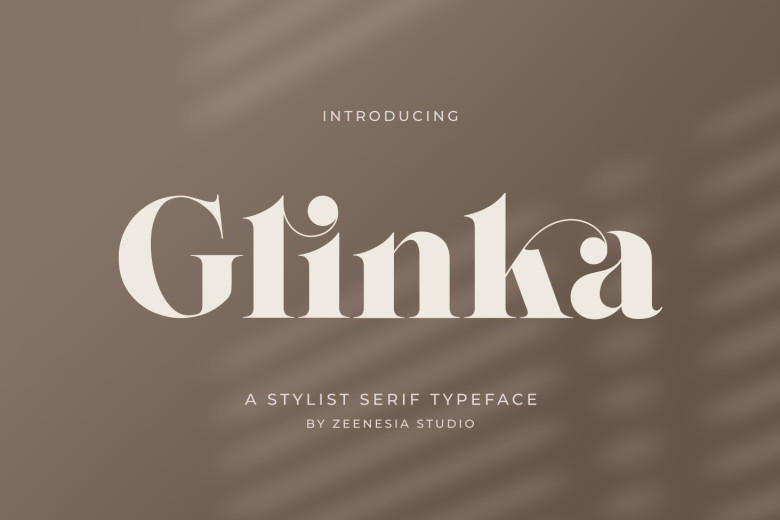
Glinka Font
Glinka is an elegant and beautiful serif typeface designed using modern open type features to suit a range of modern design needs, with numerous stylistic variations as well as natural ligatures to give this font its modern and stylish aesthetic.
I designed more alternates variations as well as many natural ligatures to complete its elegant and beautiful appearance – ideal for branding, advertising, logotypes packaging headlines titles as well as editorial designs. Glinka will compliment any brand image perfectly.
Glinka Serif Font